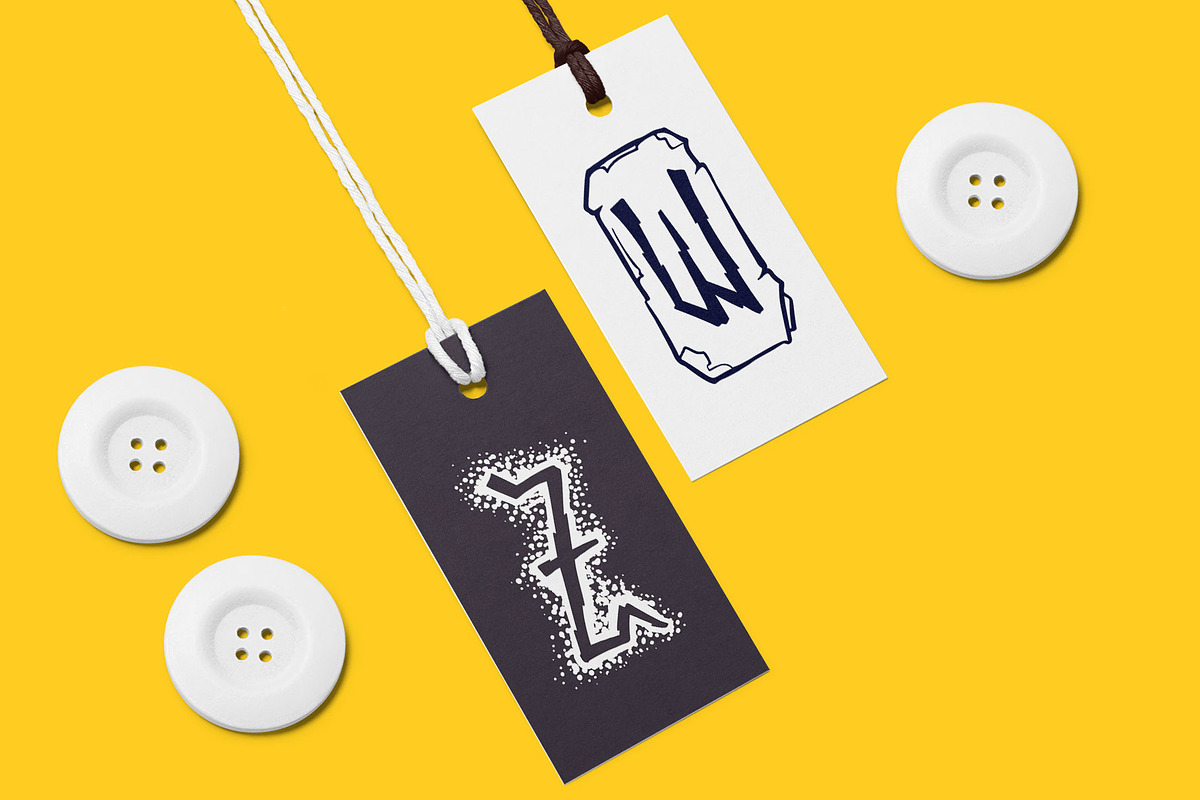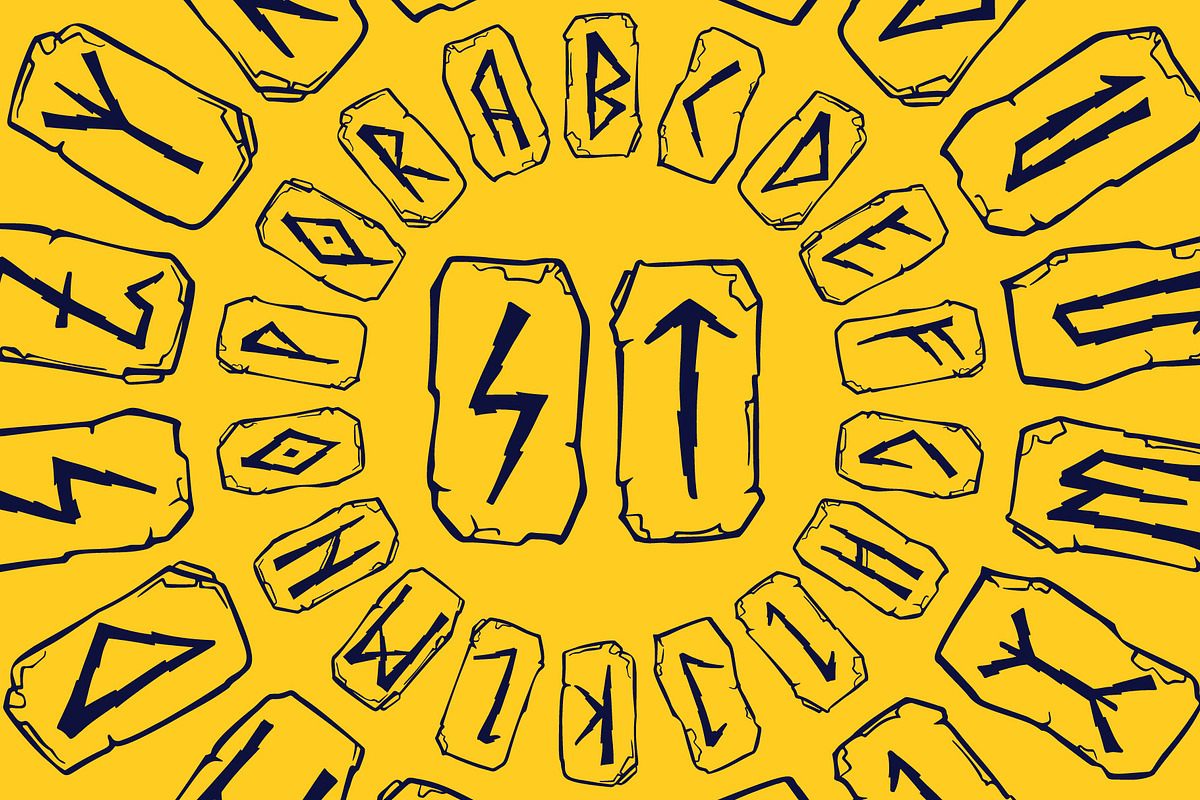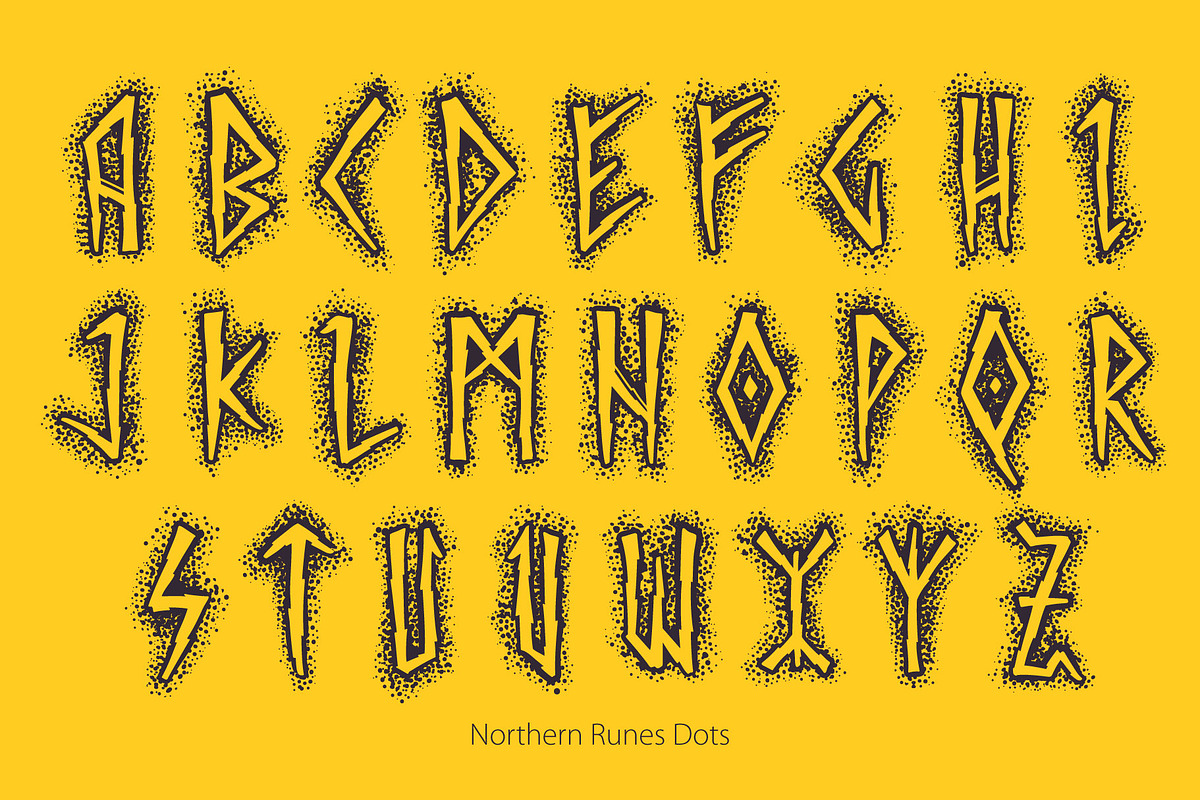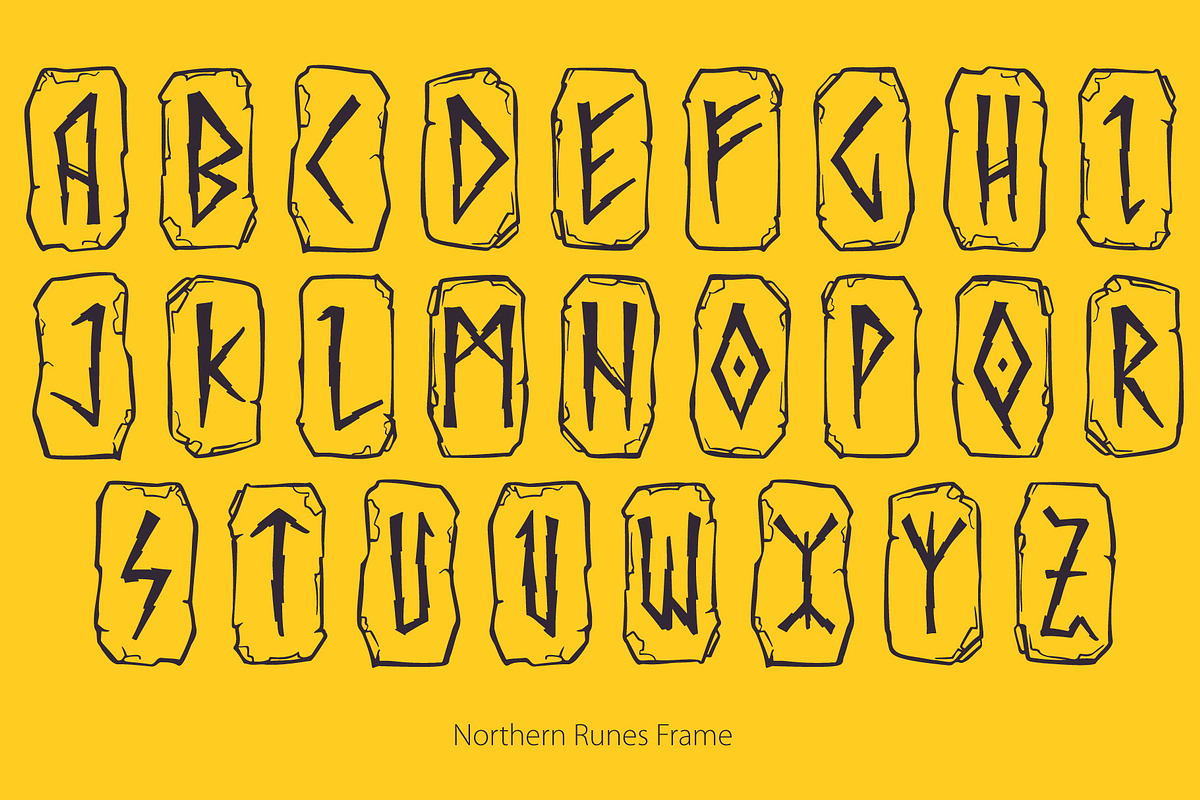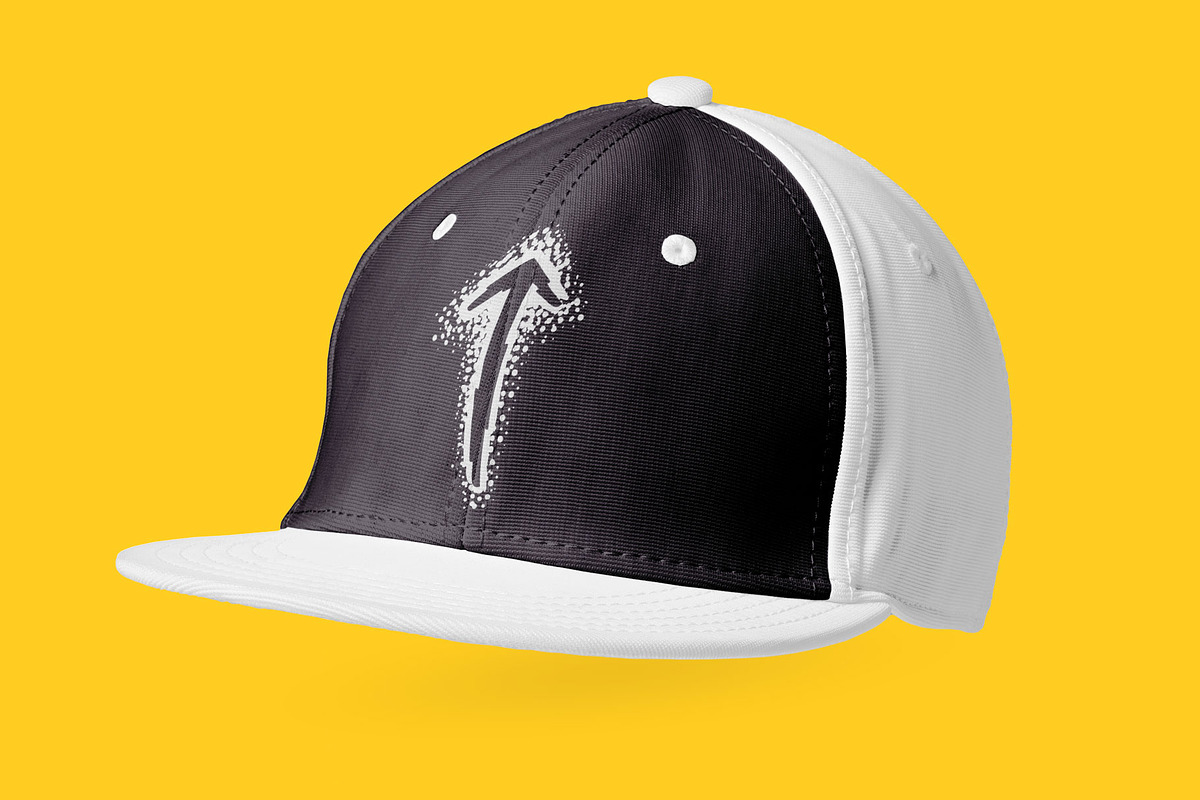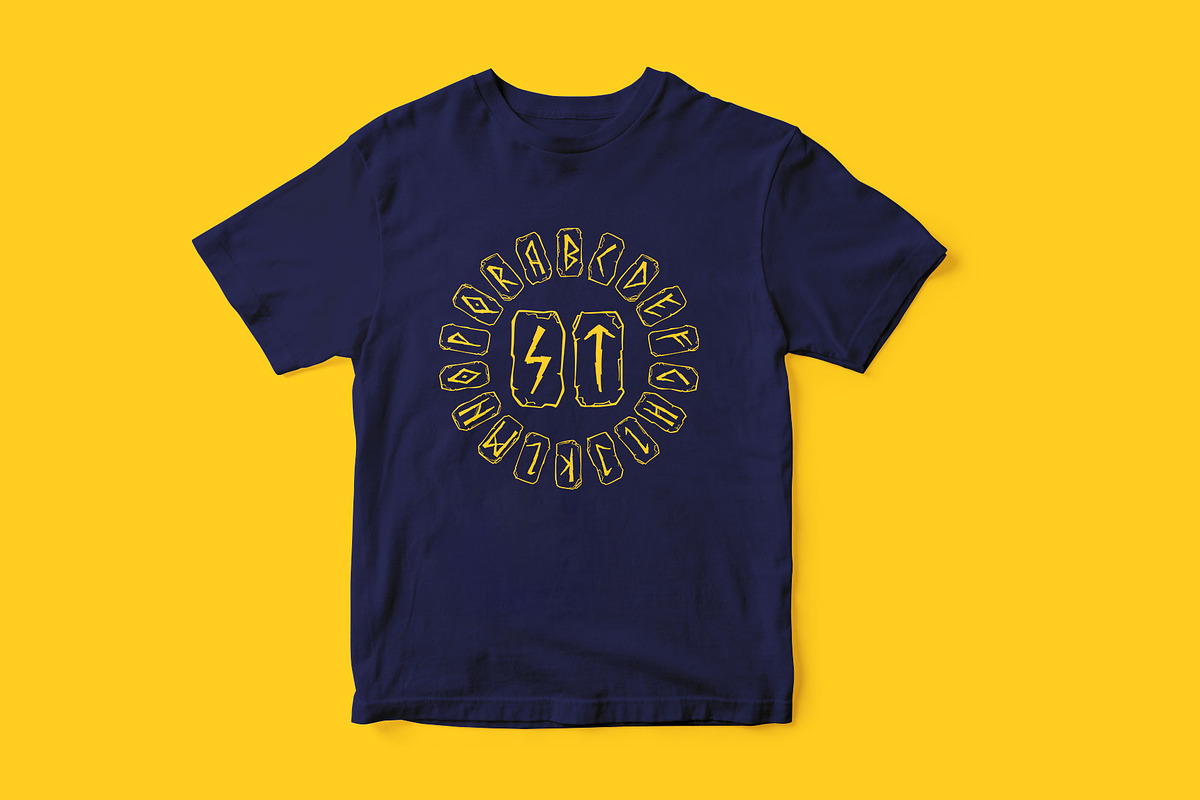
Northern Runes font
I present to you an ancient northern font consisting of runes. The Northern Runes font is perfect for clothing medieval prints, pagan posters, etc.
The font is presented in two versions. The Northern Runes Dots font consists of runes on a background of dots. In the Northern Runes Frame font the letters are in stone frames.
Only uppercase letters from A to Z (26 characters).